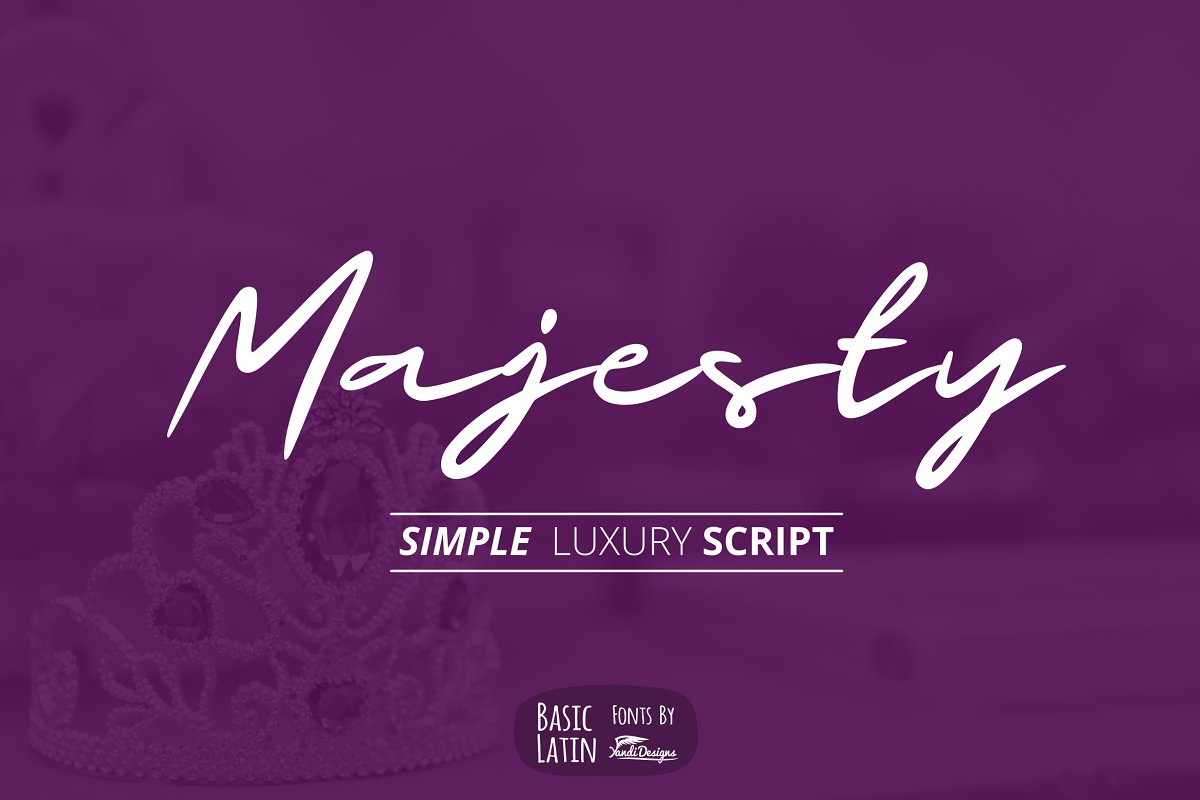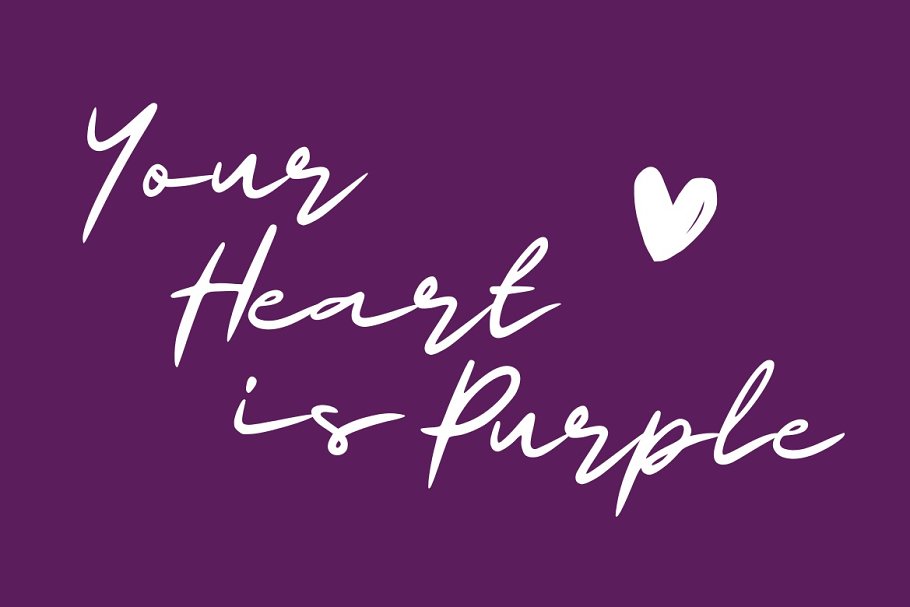
About the Majesty Luxury Font
Majesty FontSimple and luxury script , suitable for many project , quotes, logo , doodle, heading , title etc, What you getMajesty font , TTF and EOT files format, Unicode Basic Latin (Standard English character , number, punctuation)Hopefully you like it :)▼ Please try before purchasing ▼